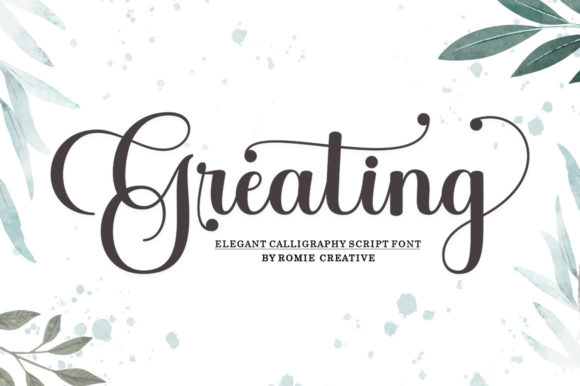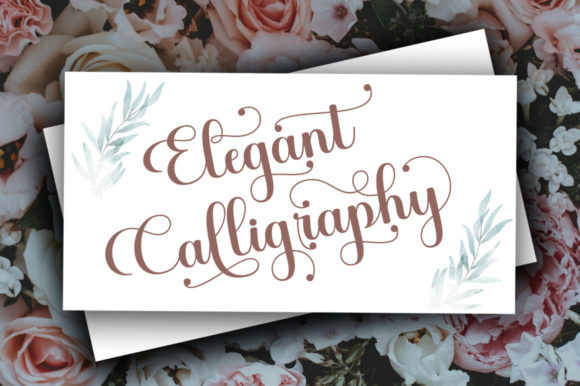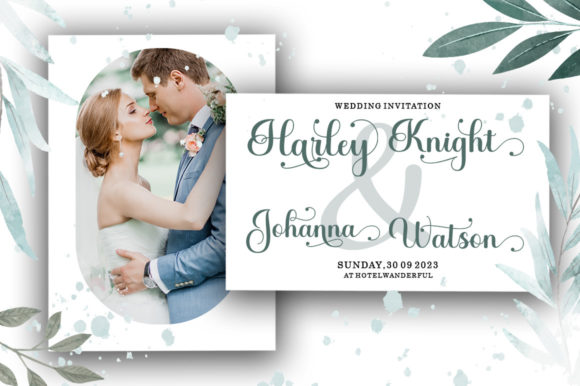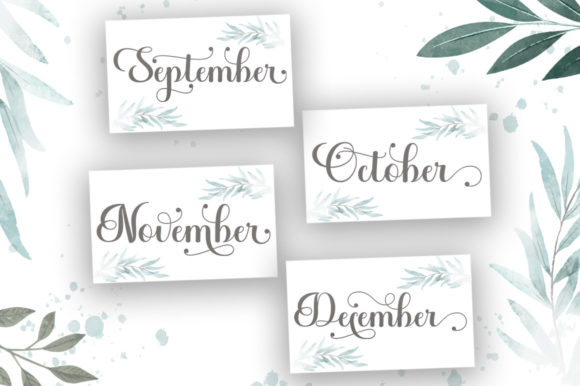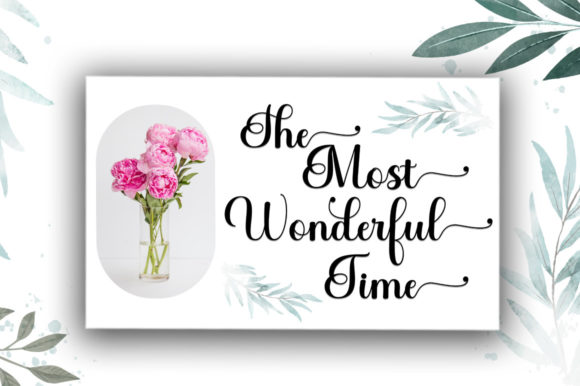
About Greating Font
Greating is a dazzling and detailed script font. Add this romantic and lovely looking font to each of your love letters, wedding invitations or favorite design ideas, and you will be astounded by the outcome. Greating is PUA encoded which means you can access all of the glyphs and swashes with ease!